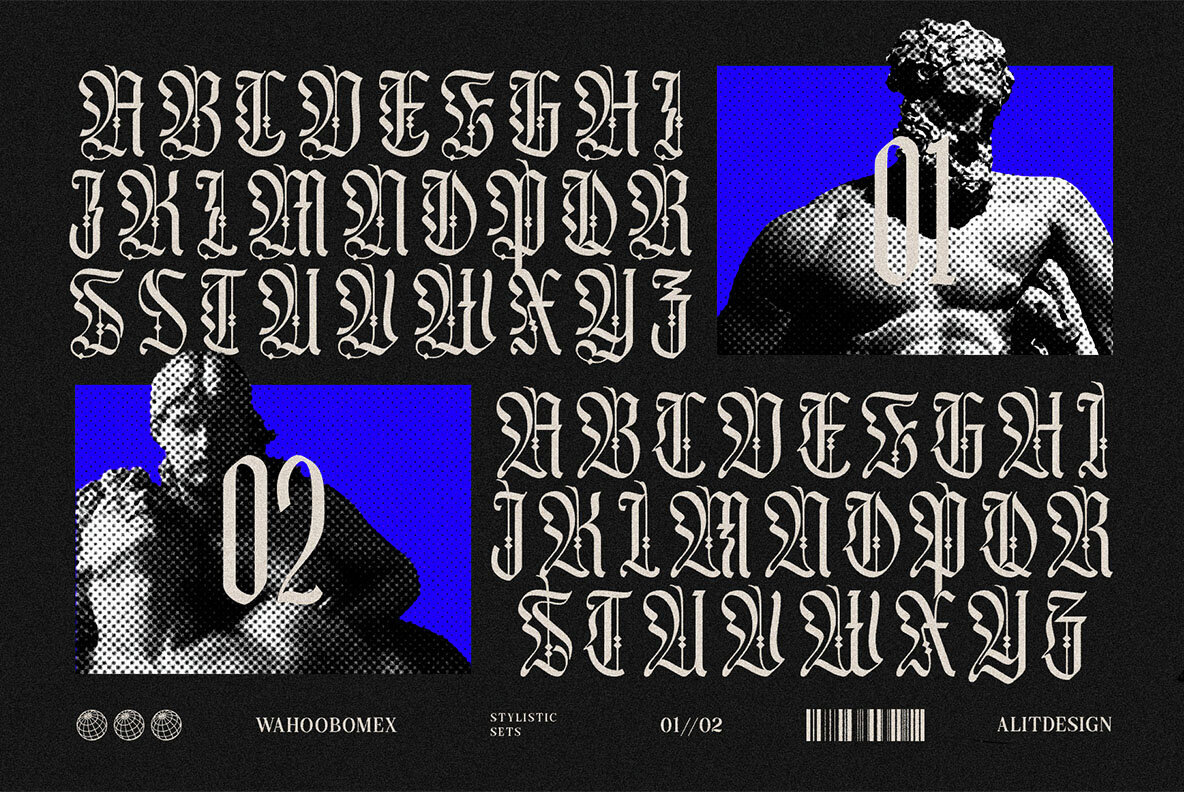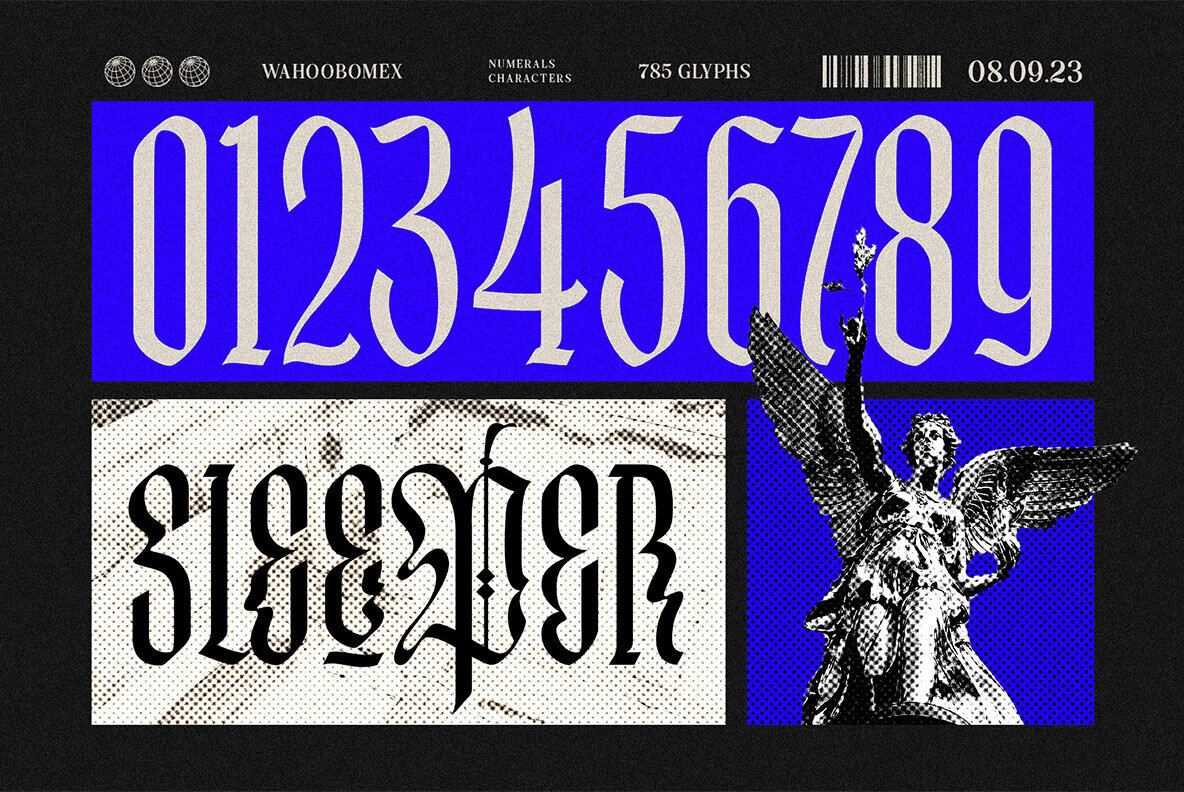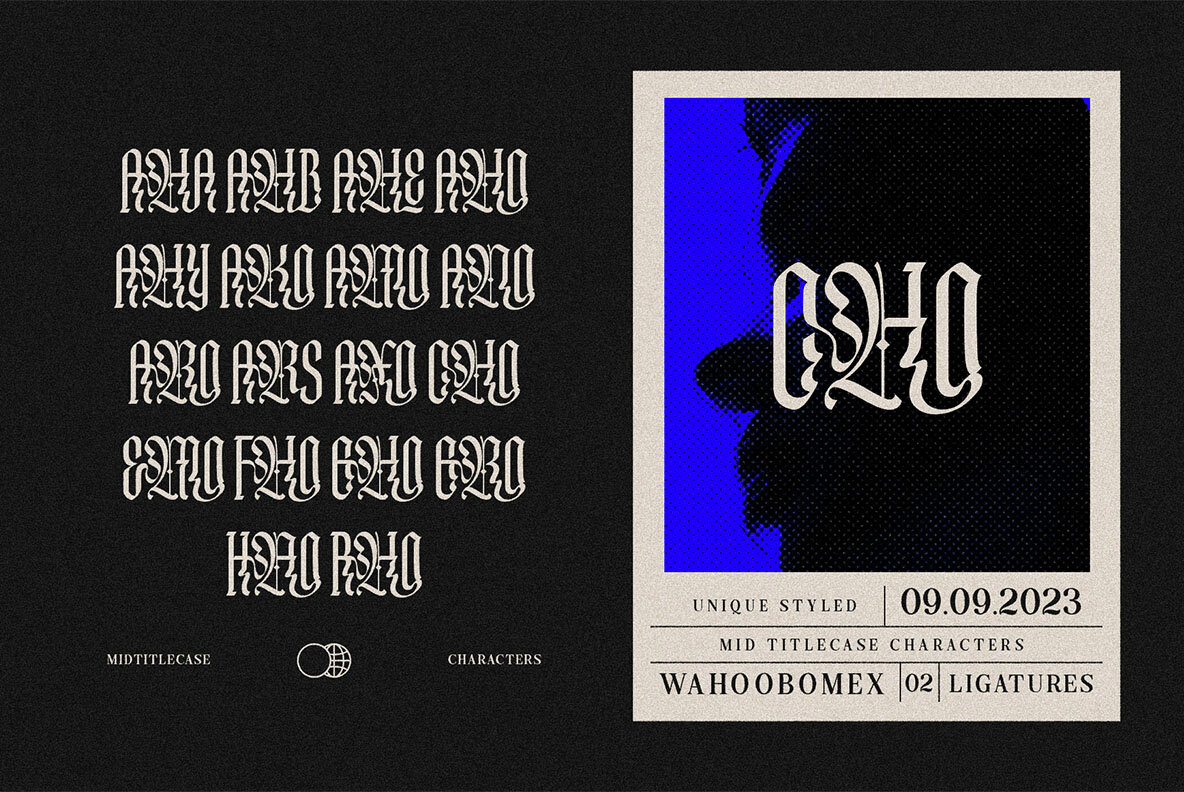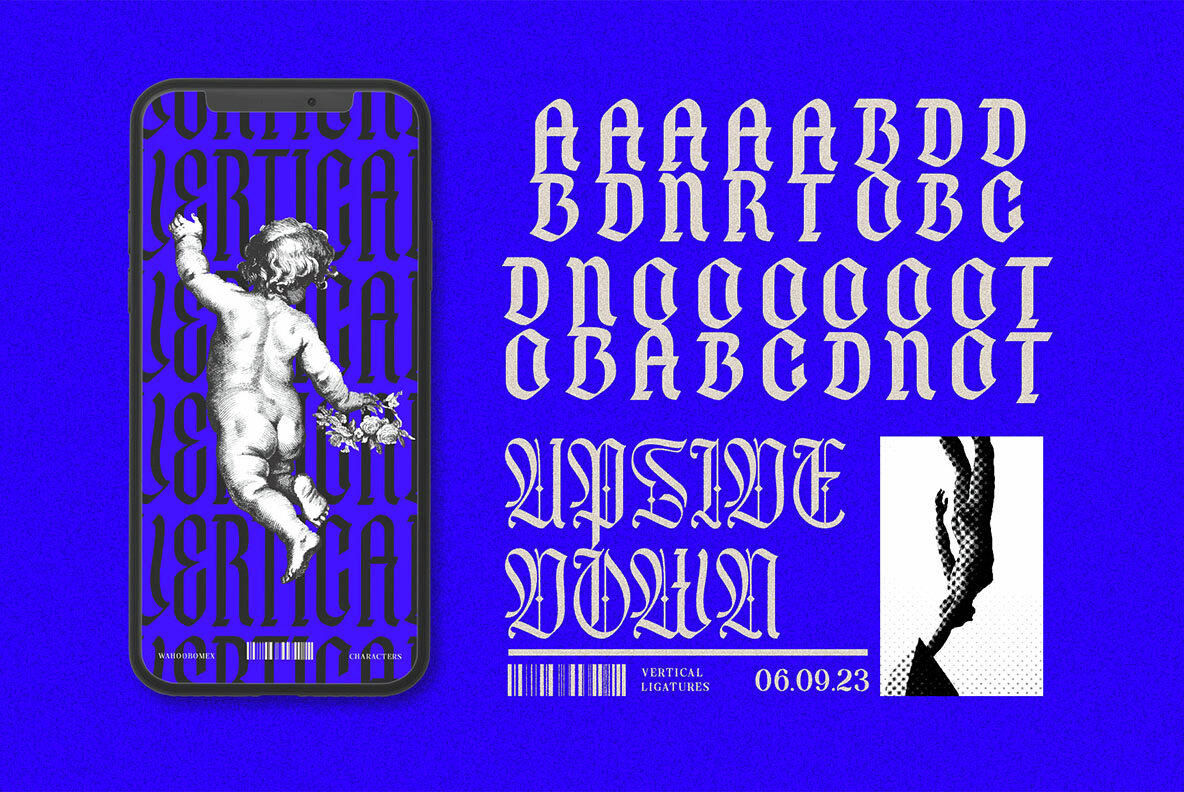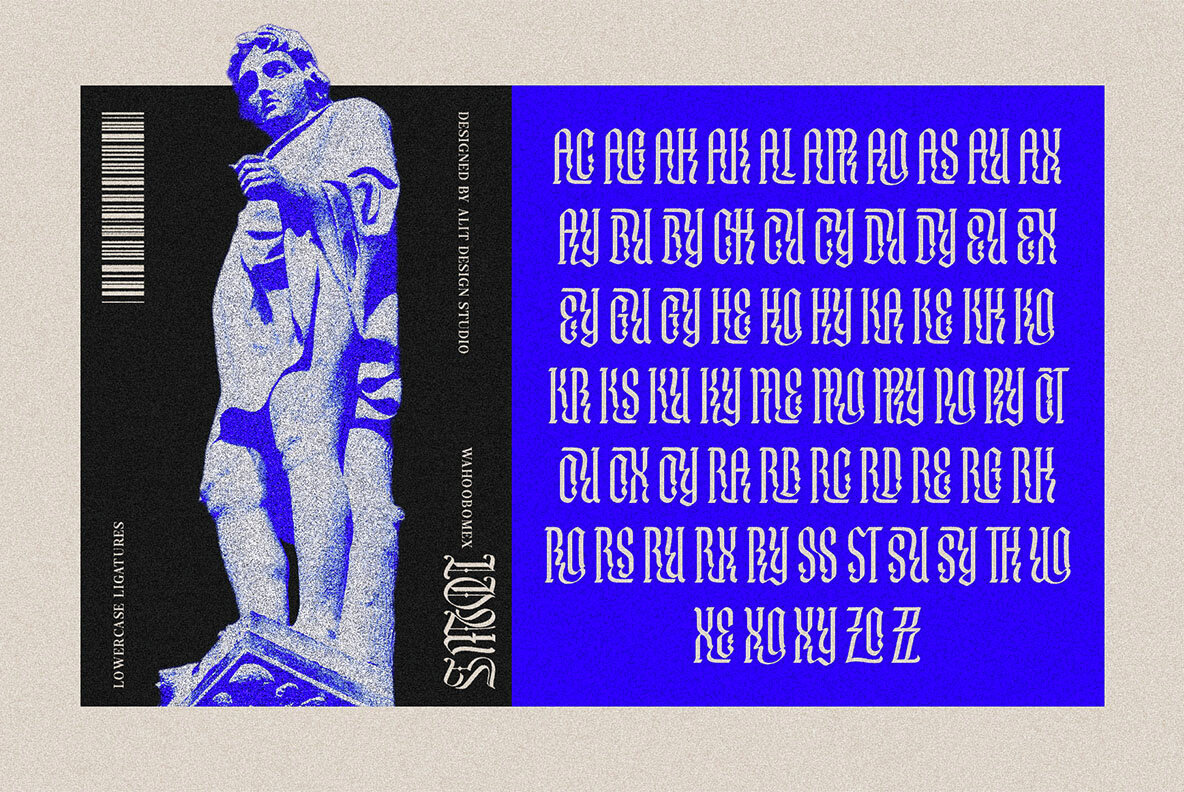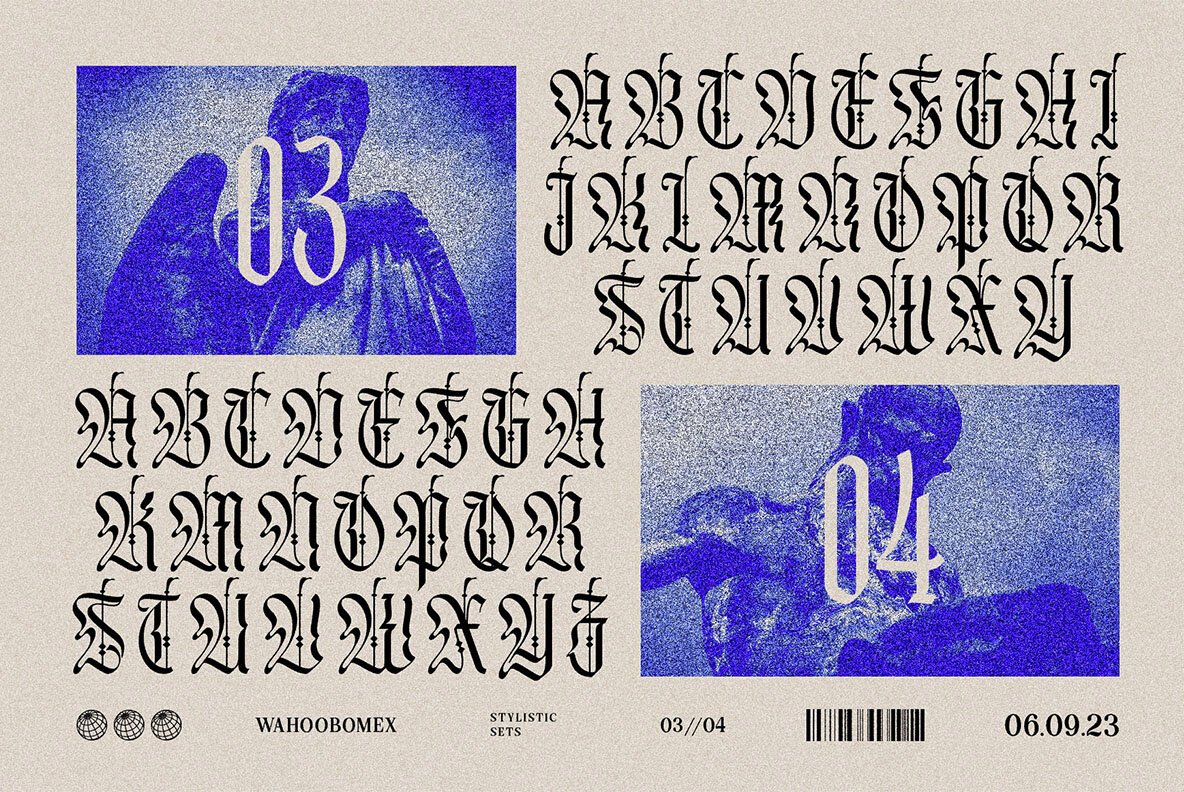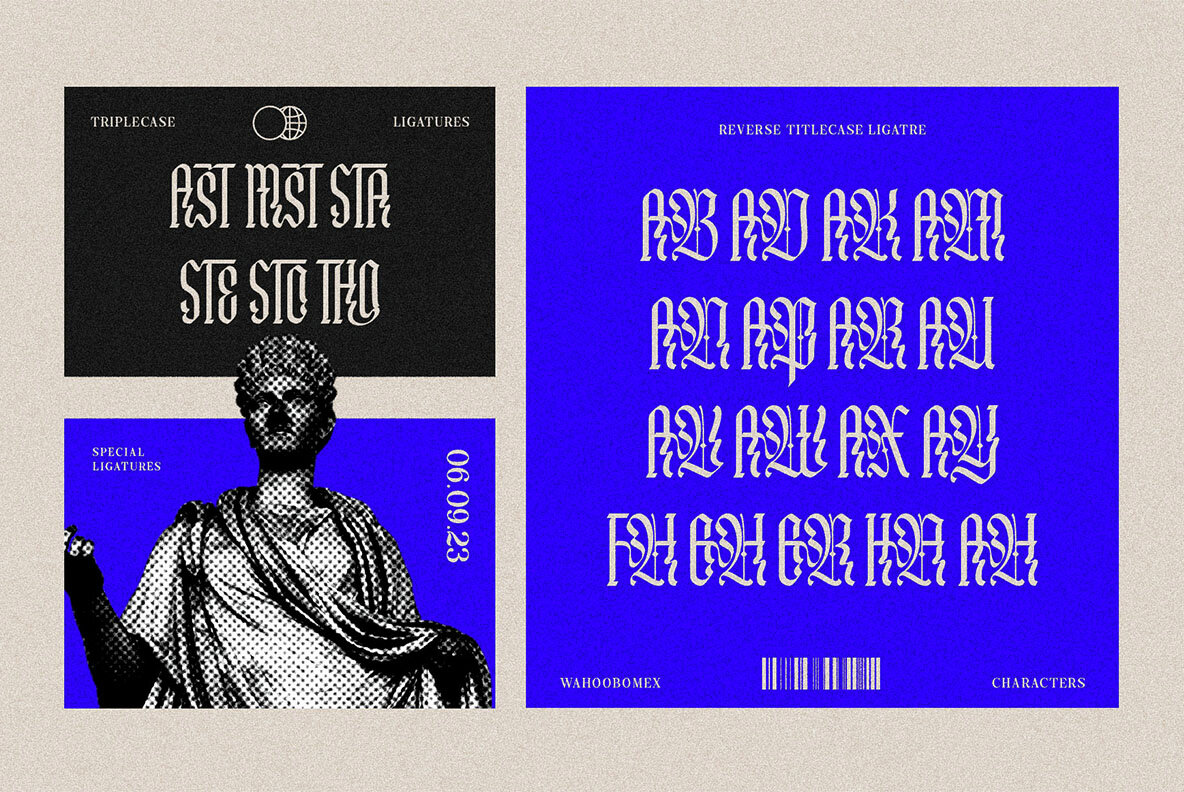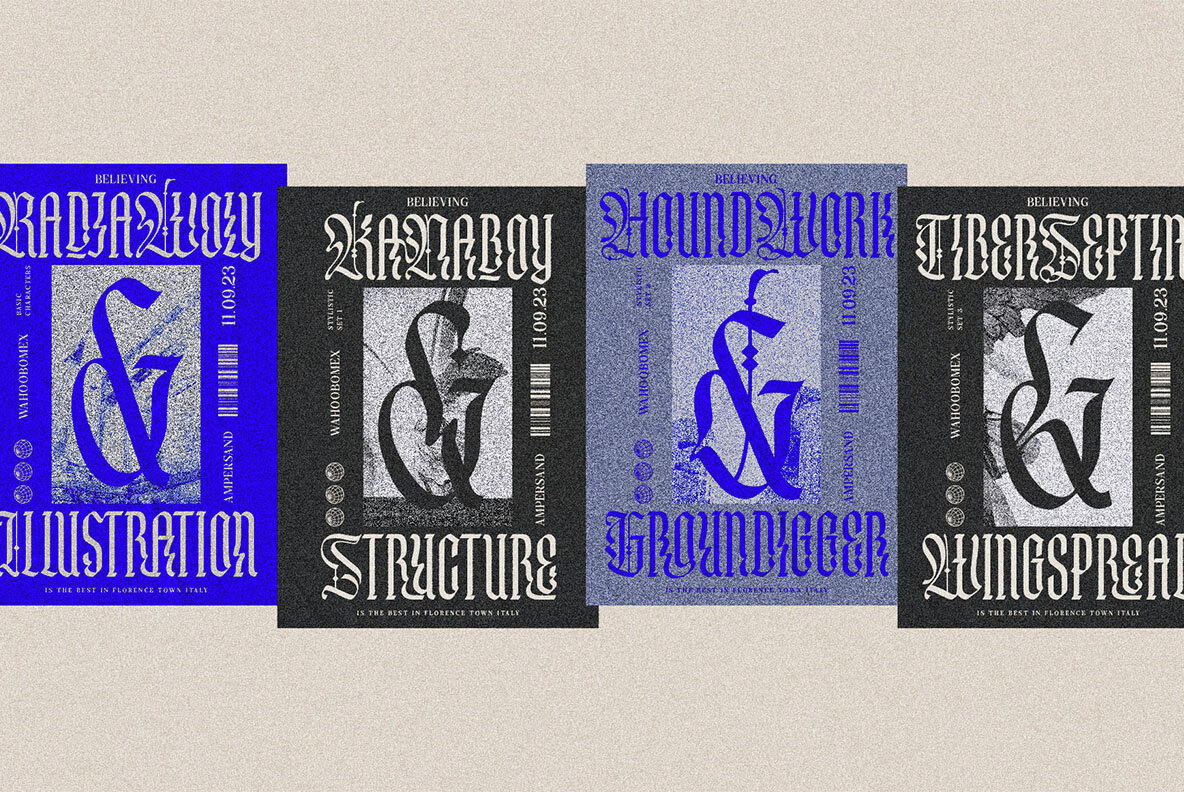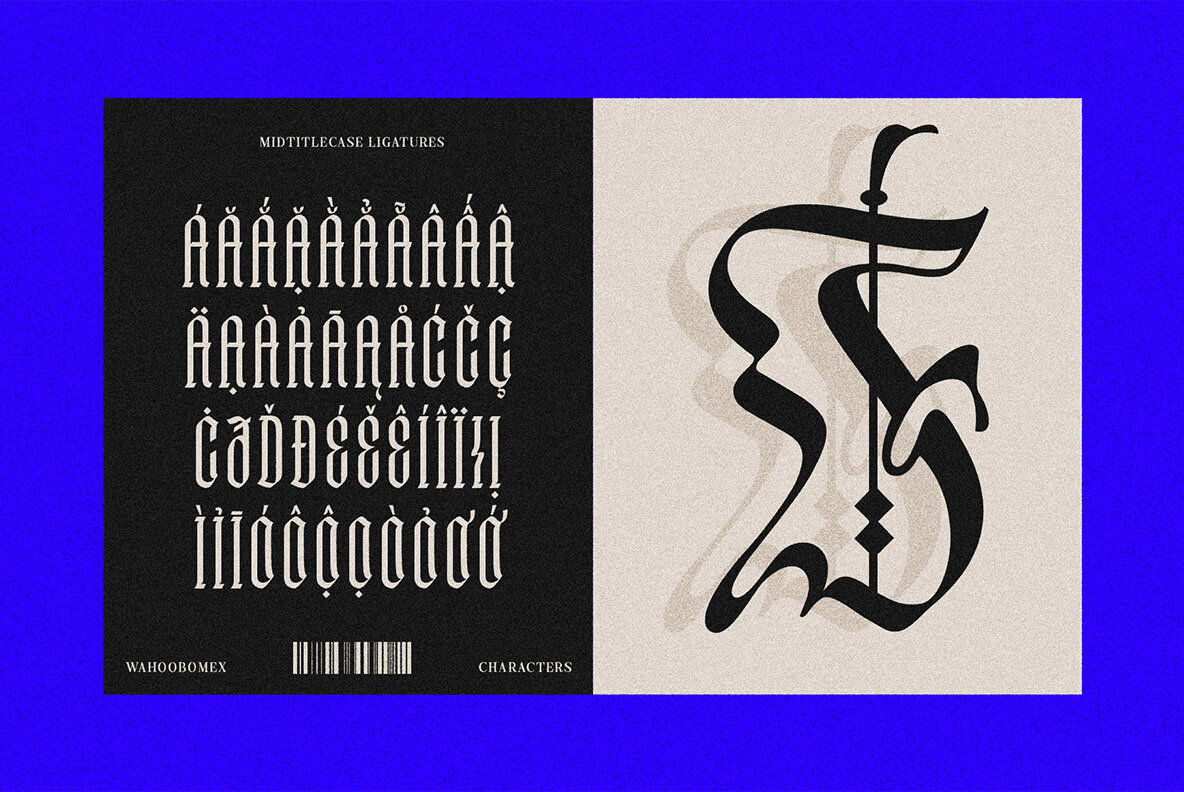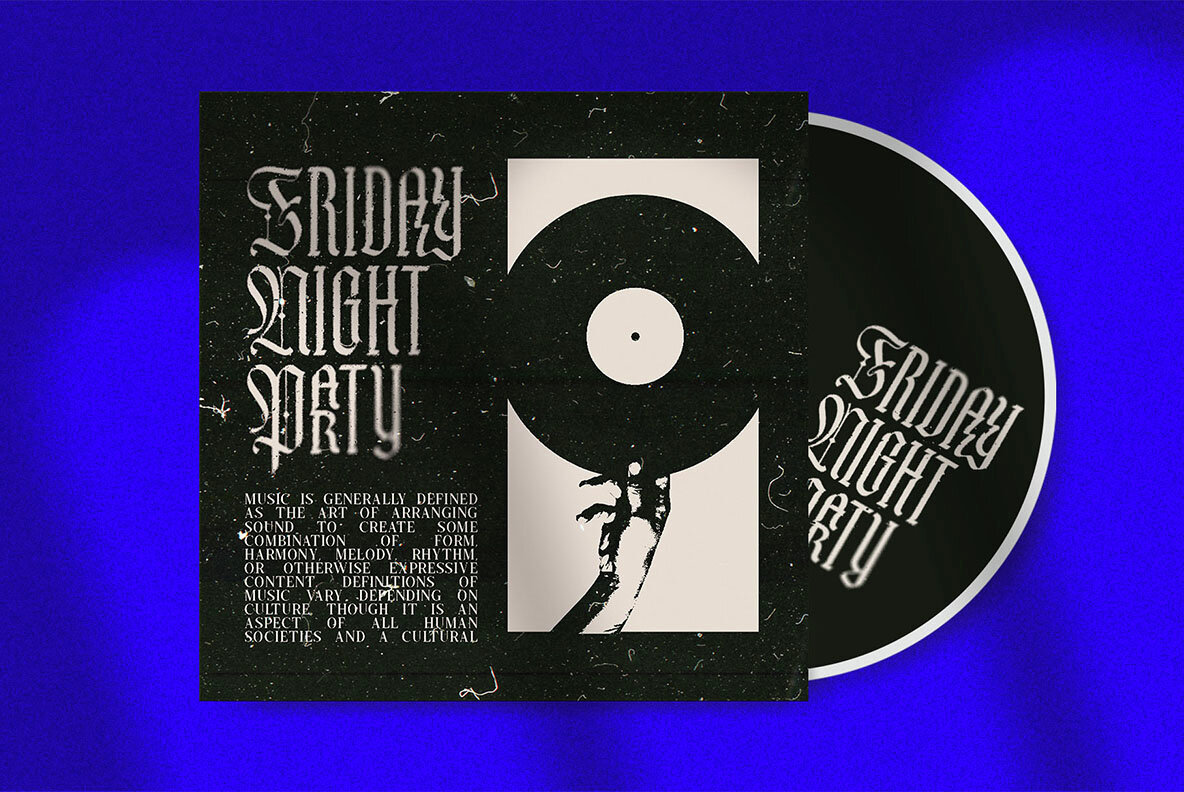
Wahoobomex Font
expand_font Wahoobomex Font Discover the perfect balance between tradition and contemporary design with Wahoobomex Dynamic Blackletter Font - a modern and strong typeface w... SKU T21148 Blackletter,Gothic,Medieval,Tattoo,Metal,Historical,Old Style,Old English Explore Exceptional Fonts for Digital and Traditional Media Fontpath offers a large variety of fonts for every designer, all at affordable prices and in multiple formats. Browse our best in class fonts today for all your creative needs, you can find everything you need right here at our site! Fonts,sans,sans serif,retro,script,decorative,title,FontPath 20140312040223 Fontpath offers 200,000+ of the most professional fonts found online, start downloading today! Real-Time Font Discovery at Fontpath
Wahoobomex Font